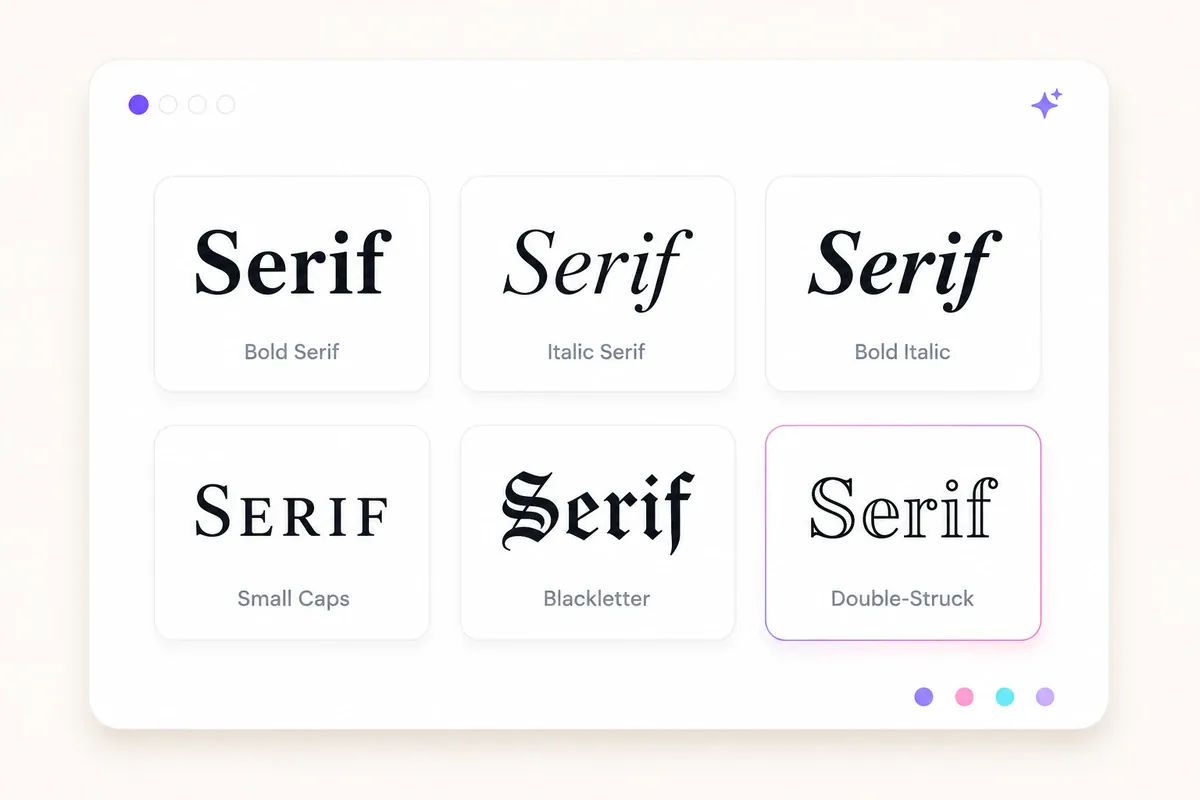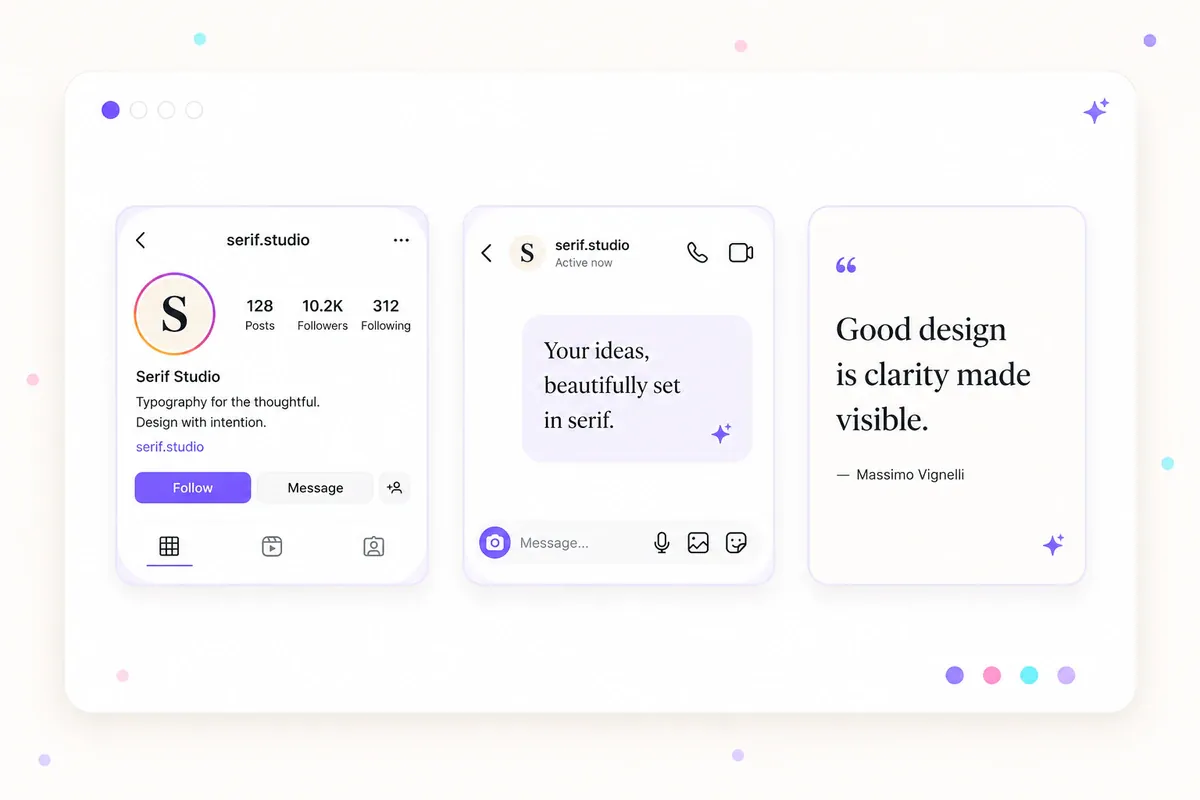
Serif Font Generator — Classic Serif Text Copy & Paste
Use this serif font generator to copy and paste classic serif text — bold, italic, small caps and more. Free Unicode styles for bios and posts.
Serif font generator turning plain text into classic serif styles on a phone screen
Serif Font Generator: Classic Text to Copy and Paste
This serif font generator turns ordinary text into classic-looking characters you can copy and paste into bios, display names, captions, comments, and short posts. Enter your text, compare the available styles, and copy the version that fits your message.
Serif lettering often creates a traditional, editorial, or refined appearance. Unlike an installed typeface, however, the output from a Unicode font generator consists of special characters. Their appearance, availability, and accessibility can vary between apps and devices.
Copy-Ready Serif Examples
StyleSample
Bold serif𝐒𝐞𝐫𝐢𝐟 𝐓𝐞𝐱𝐭
Italic serif𝑆𝑒𝑟𝑖𝑓 𝑇𝑒𝑥𝑡
Bold italic serif𝑺𝒆𝒓𝒊𝒇 𝑻𝒆𝒙𝒕
Small capsꜱᴇʀɪꜰ ꜰᴏɴᴛ
Blackletter𝔖𝔢𝔯𝔦𝔣 𝔗𝔢𝔵𝔱
Double-struck𝕊𝕖𝕣𝕚𝕗 𝕋𝕖𝕩𝕥
These examples may not display identically everywhere. Test your selected text in the exact profile field, post editor, or message where you plan to use it.
What a Serif Font Generator Does
A serif text generator replaces ordinary letters with visually styled Unicode characters.
For example, entering Serif might produce:
• 𝐒𝐞𝐫𝐢𝐟
• 𝑆𝑒𝑟𝑖𝑓
• 𝑺𝒆𝒓𝒊𝒇
• 𝔖𝔢𝔯𝔦𝔣
Because the style is part of the character rather than an installed font setting, the text can be copied into many apps. Whether it is accepted and displayed correctly depends on the characters, app field, device, operating system, and available system fonts.
A creator might use 𝐄𝐦𝐦𝐚 𝐇𝐚𝐫𝐭 as a display name to create a more traditional look. Important details such as links, email addresses, search terms, and account handles should remain in ordinary text.
Serif and Decorative Styles You Can Copy
Grid of six serif text styles you can copy and paste
The generator may include serif styles alongside decorative Unicode styles that create a similar classic or formal effect.
StyleSampleSuggested use
Bold serif𝐂𝐥𝐚𝐬𝐬𝐢𝐜Short display names and headings
Italic serif𝐶𝑙𝑎𝑠𝑠𝑖𝑐Quotes and elegant captions
Bold italic serif𝑪𝒍𝒂𝒔𝒔𝒊𝒄Short names that need more emphasis
Small capsᴄʟᴀꜱꜱɪᴄLabels, profile text, and compact headings
Blackletter or Frakturℭ𝔩𝔞𝔰𝔰𝔦𝔠Gothic or vintage styling
Double-struckℂ𝕝𝕒𝕤𝕤𝕚𝕔Mathematical or technology-inspired text
Small caps, blackletter, and double-struck characters are not conventional serif typefaces. They are better understood as serif-adjacent or decorative Unicode styles.
A few practical considerations:
• Bold serif creates strong contrast but should still be tested at small screen sizes.
• Italic serif can look elegant, although thin or slanted characters may be harder to scan.
• Small caps may combine characters from different Unicode ranges, so letter coverage can vary.
• Blackletter is highly decorative and works best for a few words rather than complete sentences.
• Double-struck is associated with mathematical notation and may be interpreted differently by assistive technology.
Important: This Is Unicode Text, Not an Installed Font
Diagram comparing an installed font file with copy-ready Unicode serif characters
The output from this generator is Unicode text. It is not an installed typeface such as Georgia, Garamond, or Times New Roman.
Installed fonts
A real font is a software file installed on a device or loaded by a website. It changes how ordinary letters are drawn and gives designers control over features such as:
• Font size
• Weight
• Line spacing
• Letter spacing
• OpenType features
• Language coverage
The font must be available on the device, included in the document, or loaded by the website.
Styled Unicode characters
Unicode serif text uses separate encoded characters that already have a bold, italic, Fraktur, or double-struck appearance. You copy the characters themselves rather than applying a font setting.
Many of these characters come from the Mathematical Alphanumeric Symbols range, which was designed for mathematical notation rather than general decorative typography. Using them for styling can affect:
• Screen-reader output
• Search and indexing
• Copying and text processing
• Username validation
• Character limits
• Cross-device rendering
For that reason, styled Unicode text is best used for short decorative elements. Keep instructions, contact information, links, legal text, and other essential content in ordinary characters.
Add a Classic Look to Short Text
A serif font generator provides a quick way to give a name, caption, or profile line a traditional or editorial appearance. The output is made from styled Unicode characters rather than an installed typeface, so compatibility and accessibility can vary.
Use the serif font generator on this page to create your text, copy a style, and test it in the exact field where it will appear. Keep decorative text short, confirm the saved result, and leave essential or searchable information in ordinary characters.